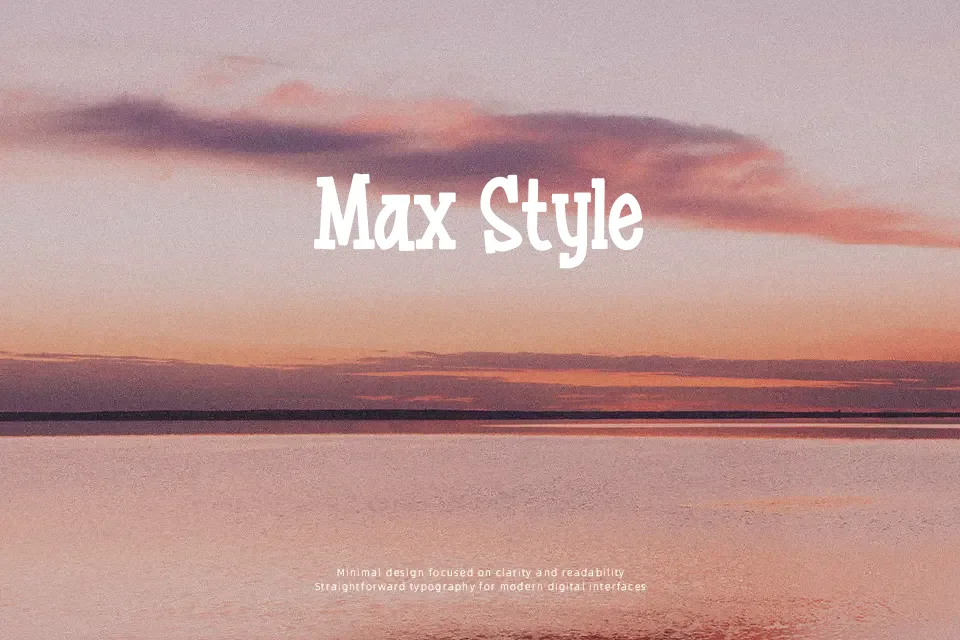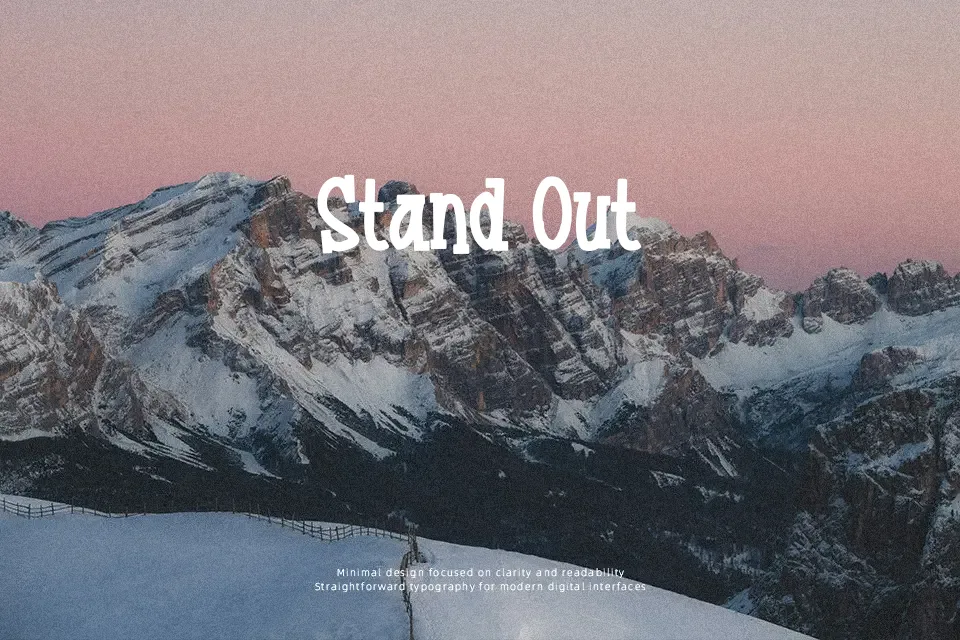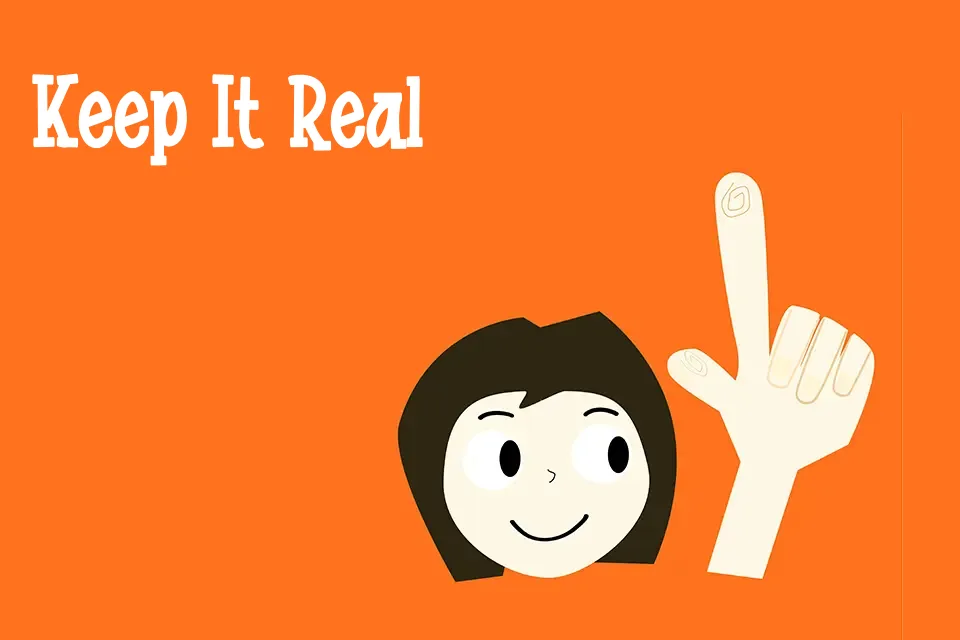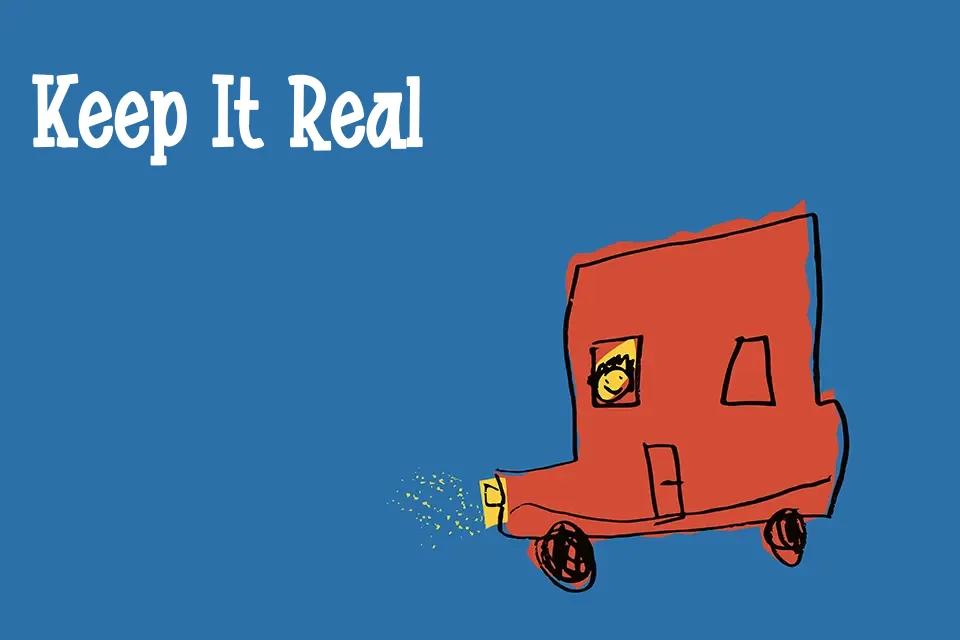
Kopi Arabica Font
Designed by Gassstype
Warm and slightly rustic, Kopi Arabica carries the feel of hand-painted lettering often seen on café chalkboards. The strokes are uneven with soft curves and moderate spacing, giving it a relaxed, informal rhythm. It leans toward a brush-handwritten style, making it effective for coffee branding, menu titles, or packaging that needs a human touch. However, the irregular structure reduces readability in smaller sizes or longer text blocks. It works best when used sparingly as a display element rather than for detailed information. Compared to cleaner scripts, it feels more textured and less refined.
coffee shop menu headers
packaging for handmade products
branding for small cafés
social media graphics with a casual tone
formal corporate materials
small-size body text
high-precision layouts
Perfect for headline, logo, and packaging, with a artistic and brush style.